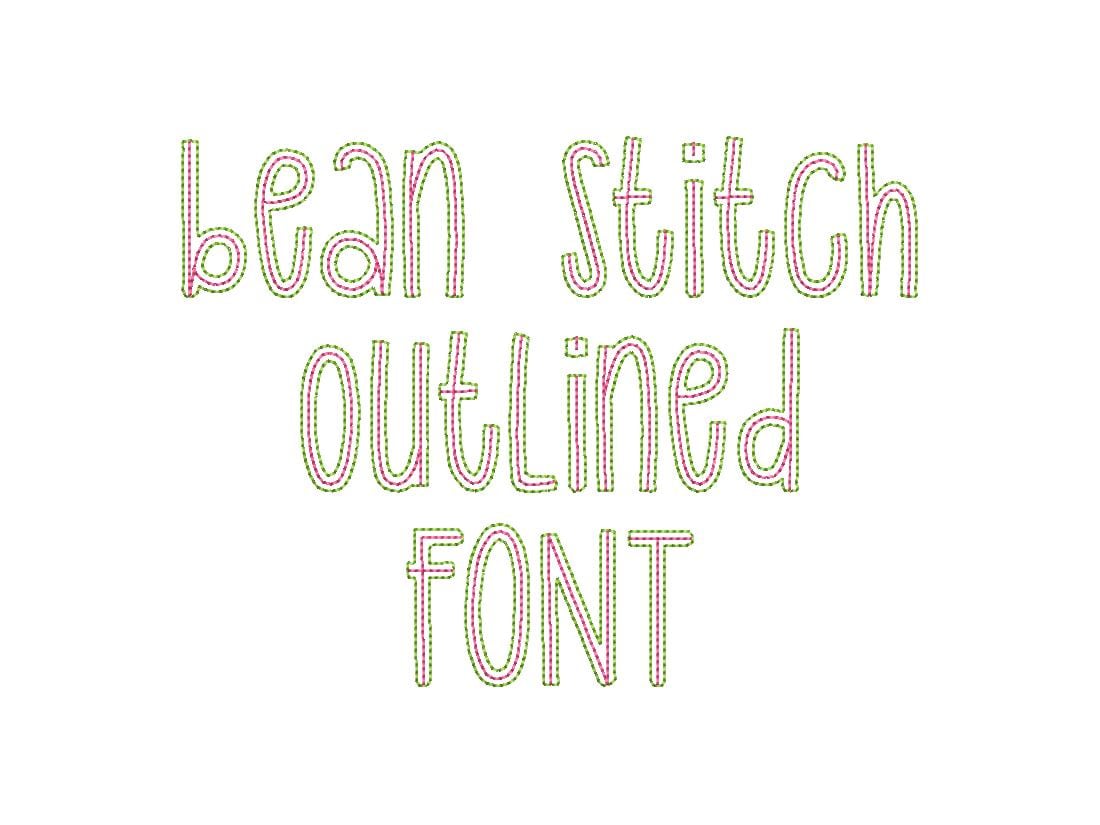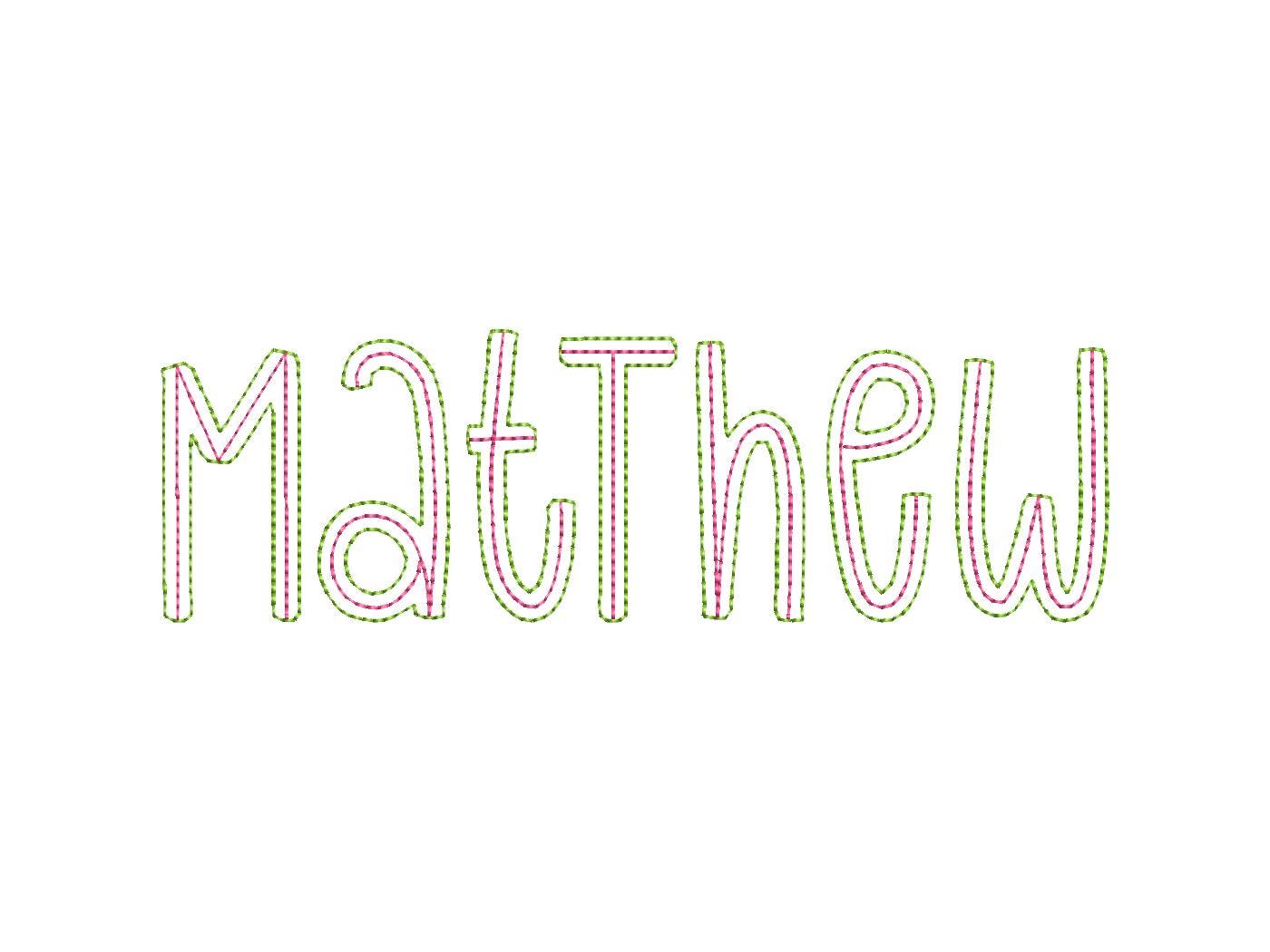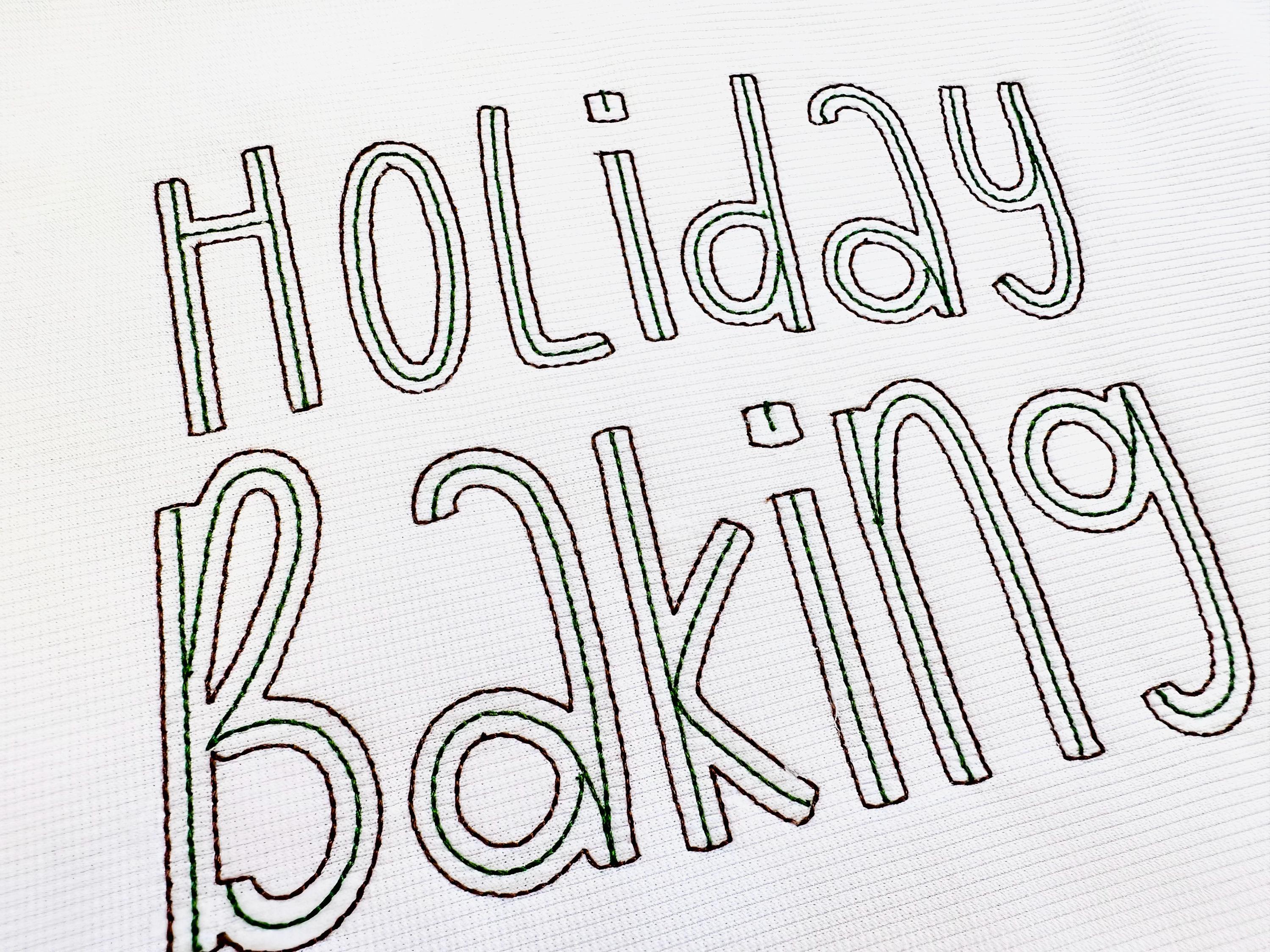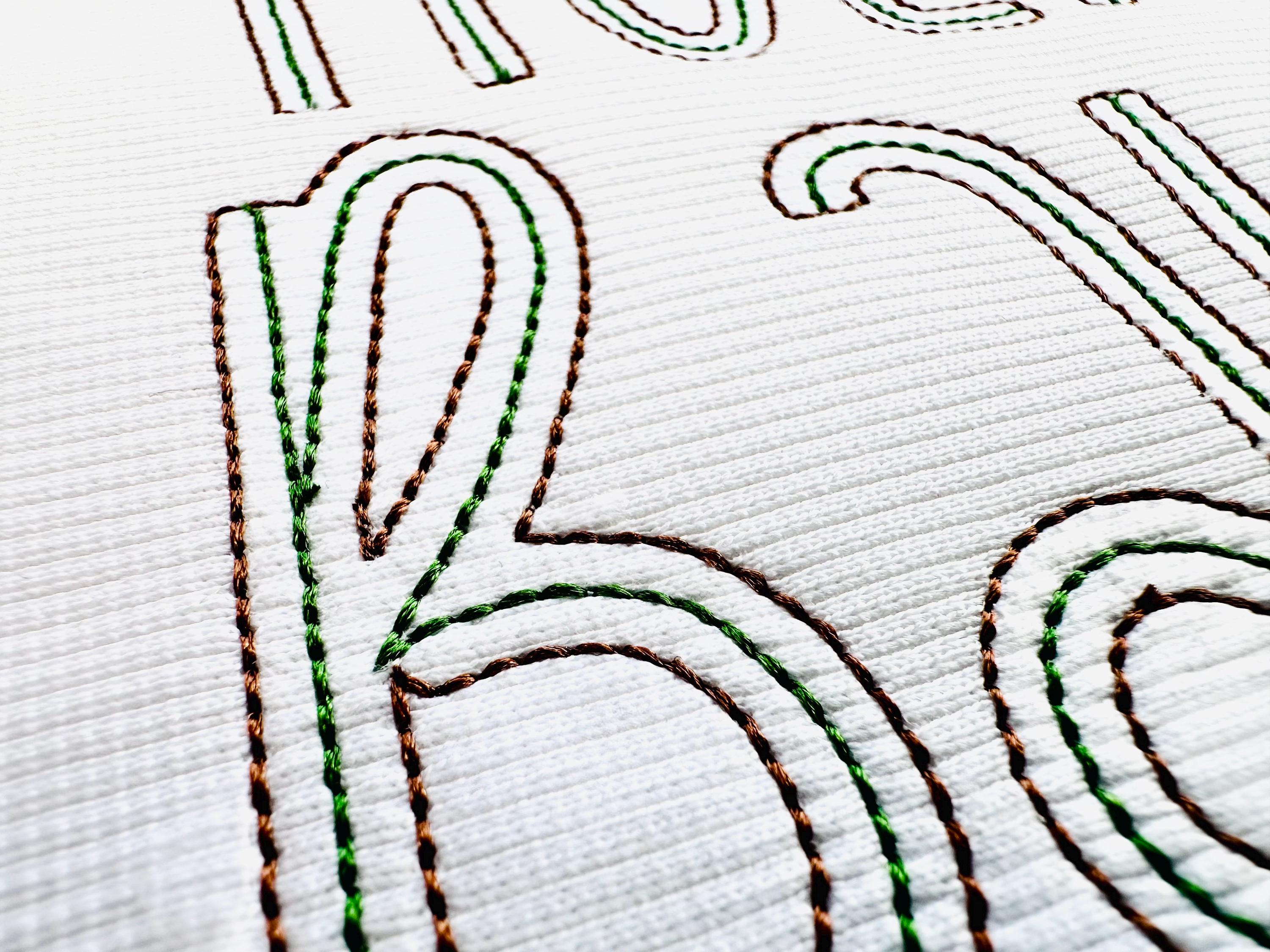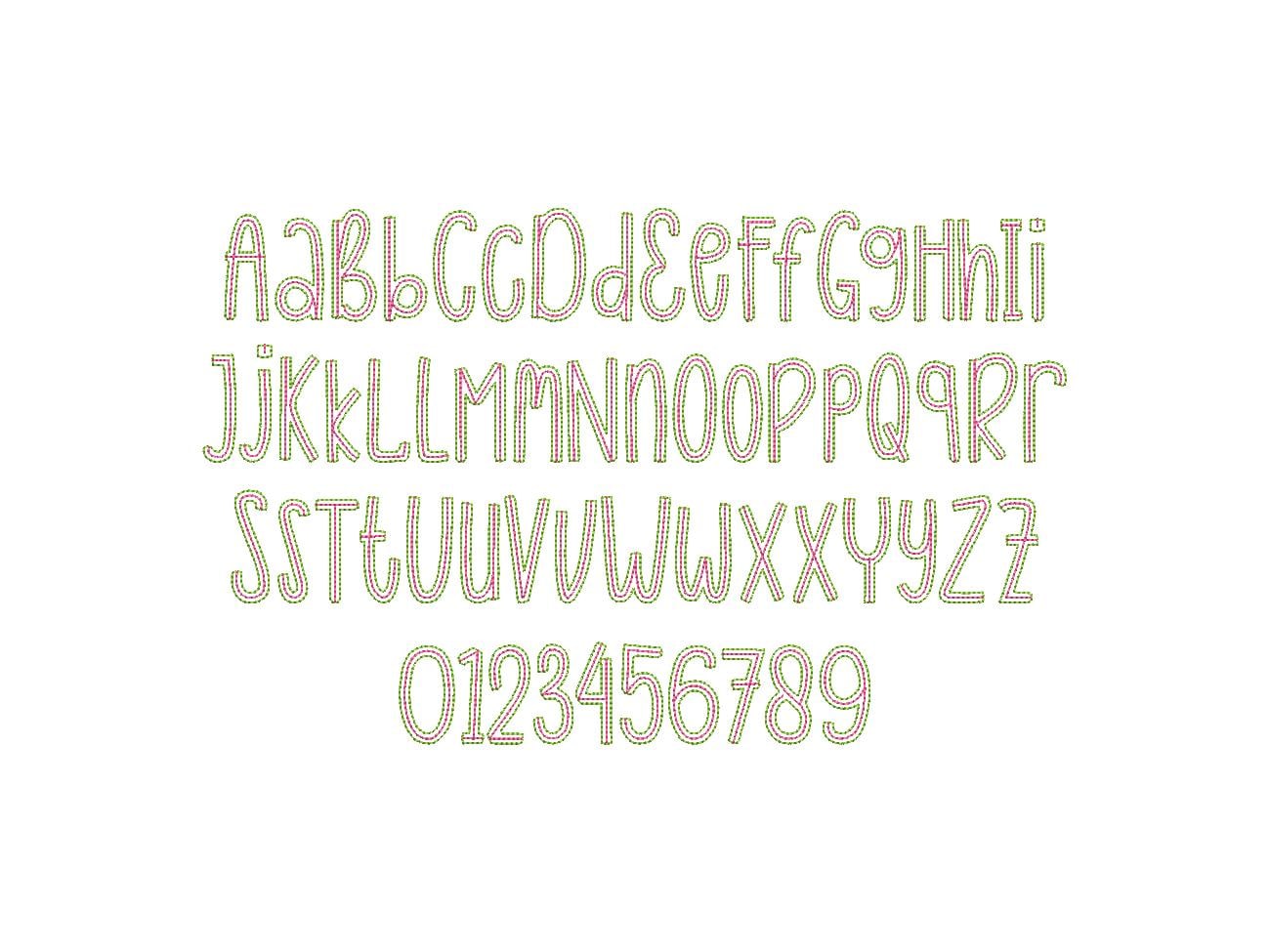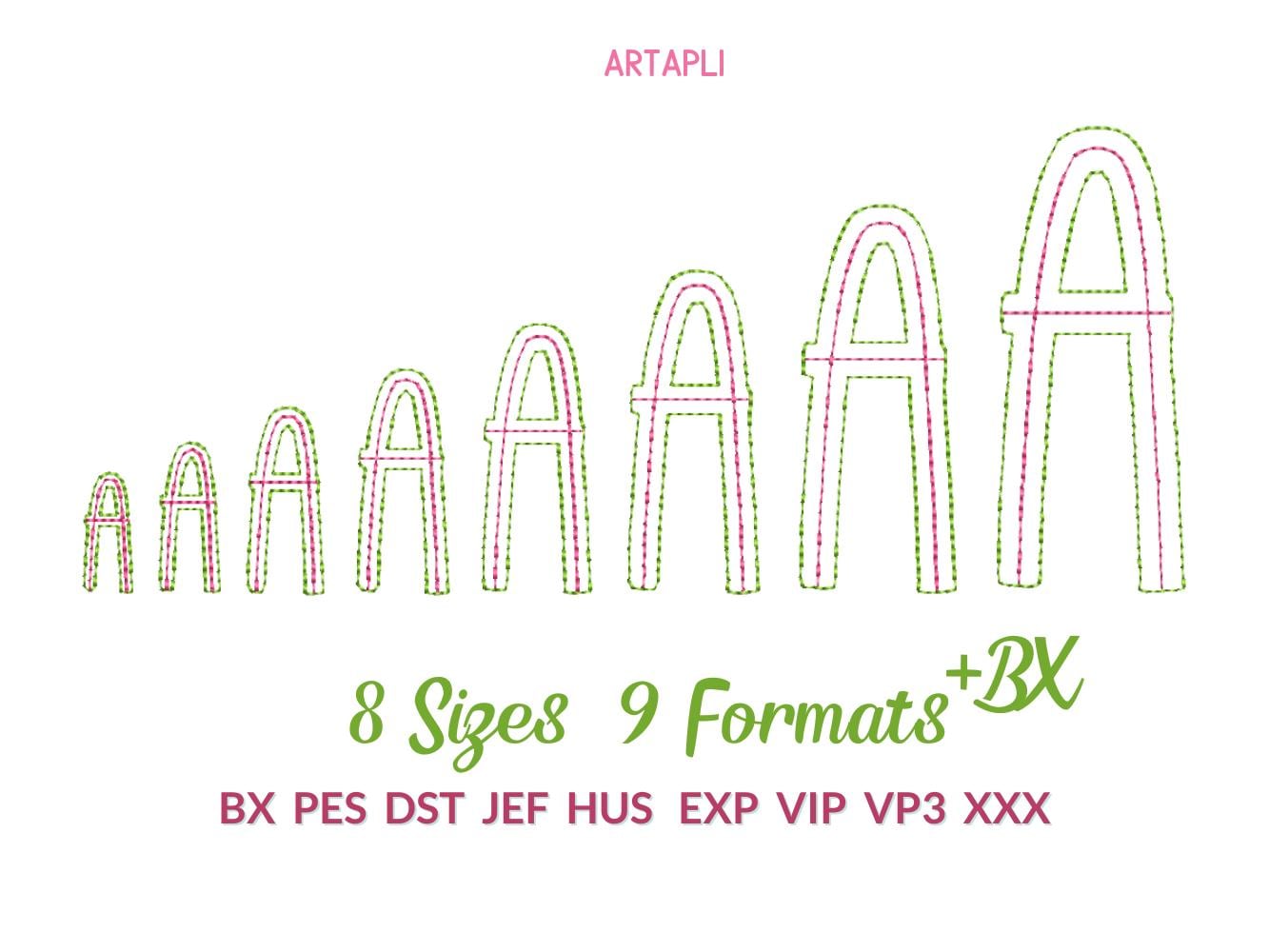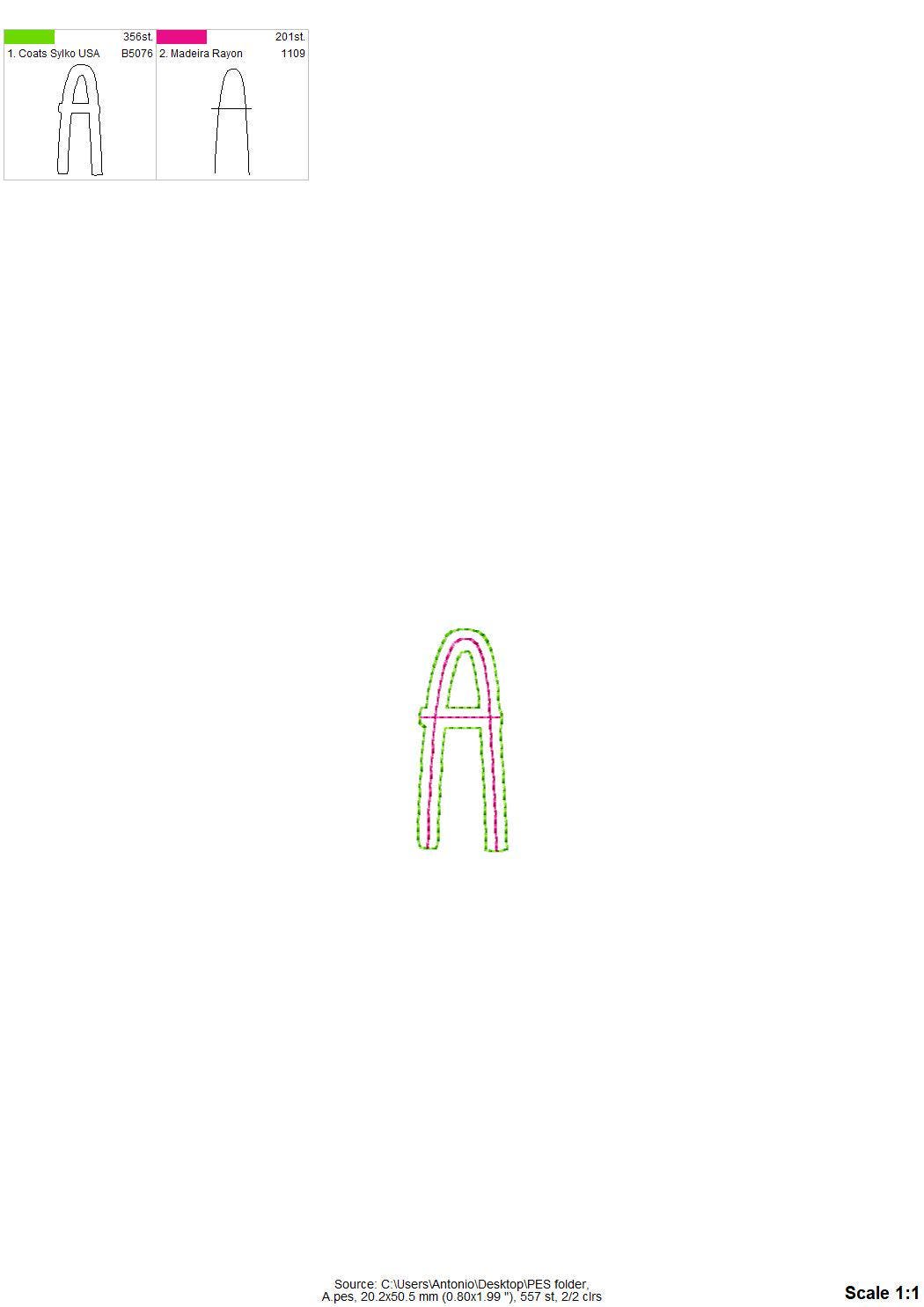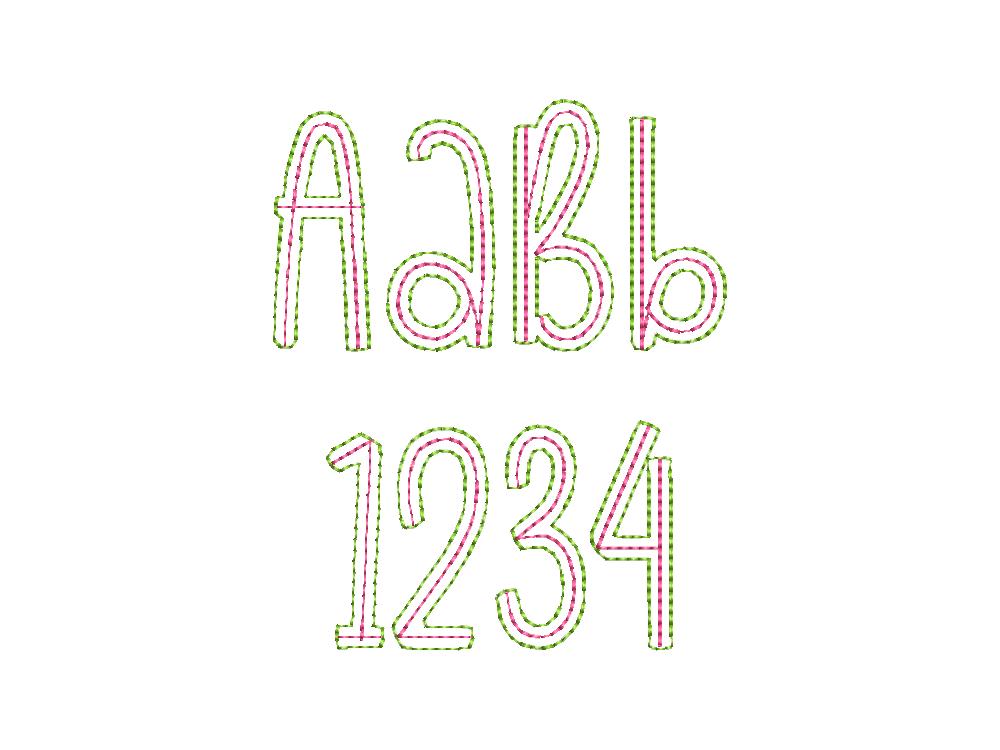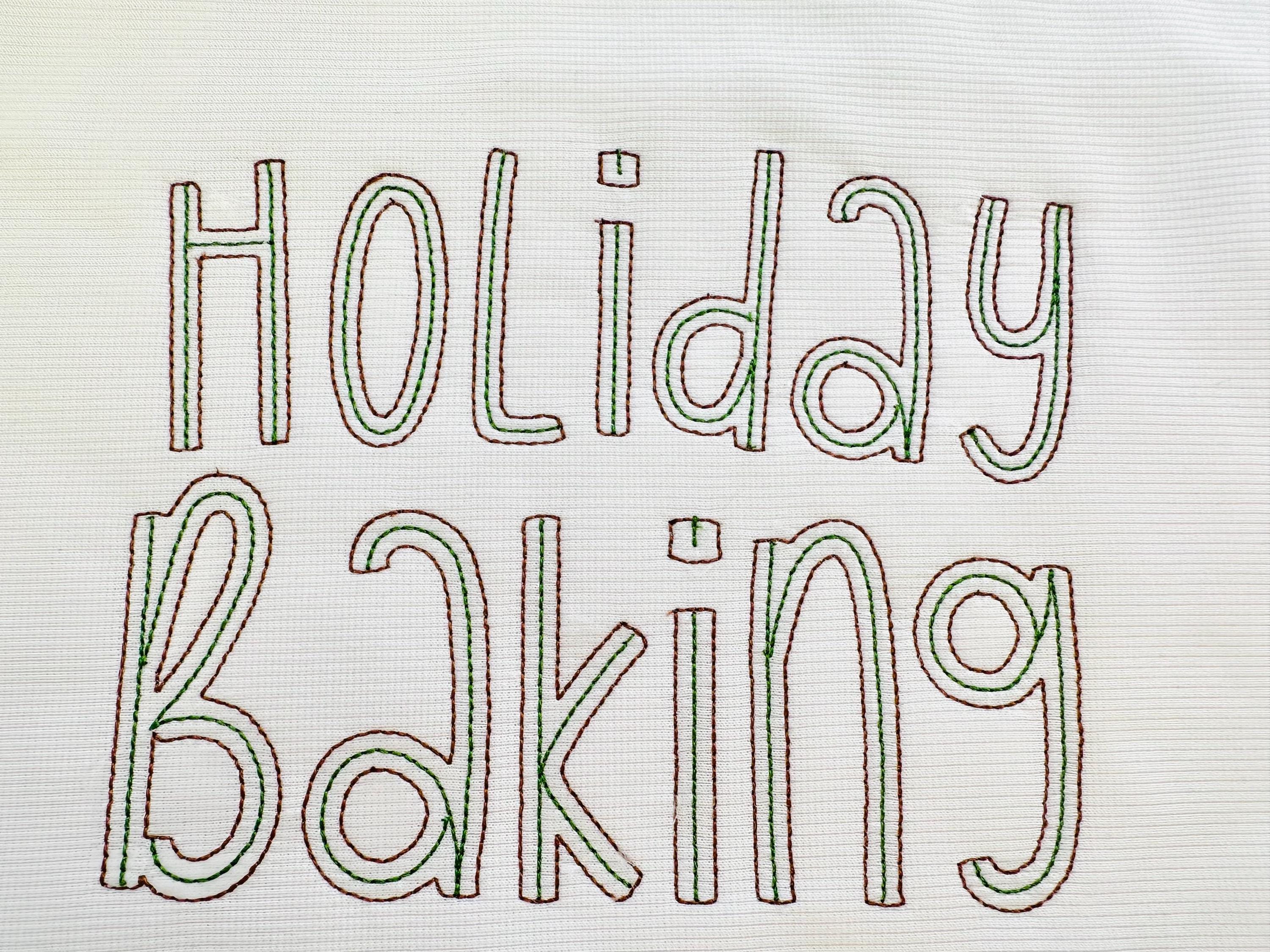
Bean Stitch Outlined FONT thin outline hand stitch effect one height alphabet letters machine embroidery designs monogram sizes from 0.9 up to 3.5 inches
The font is transparent, it has bean stitch inner letter and bean stitch outline. The background fabric looks through. Stunning effect!
Whole alphabet: uppercase and lowercase letters, and numbers.
You can use this font as is, or make raggedy edge applique.